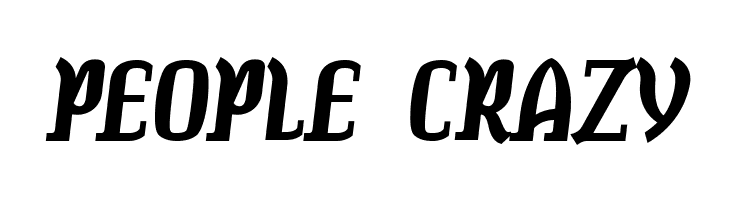
Movie Script Ending Bold Font
- Font: Movie Script Ending Bold
( Fonts by Lutz Baar - www.menschengeist.de )
A bold, hand-drawn style font with angular uppercase and flowing lowercase letters.